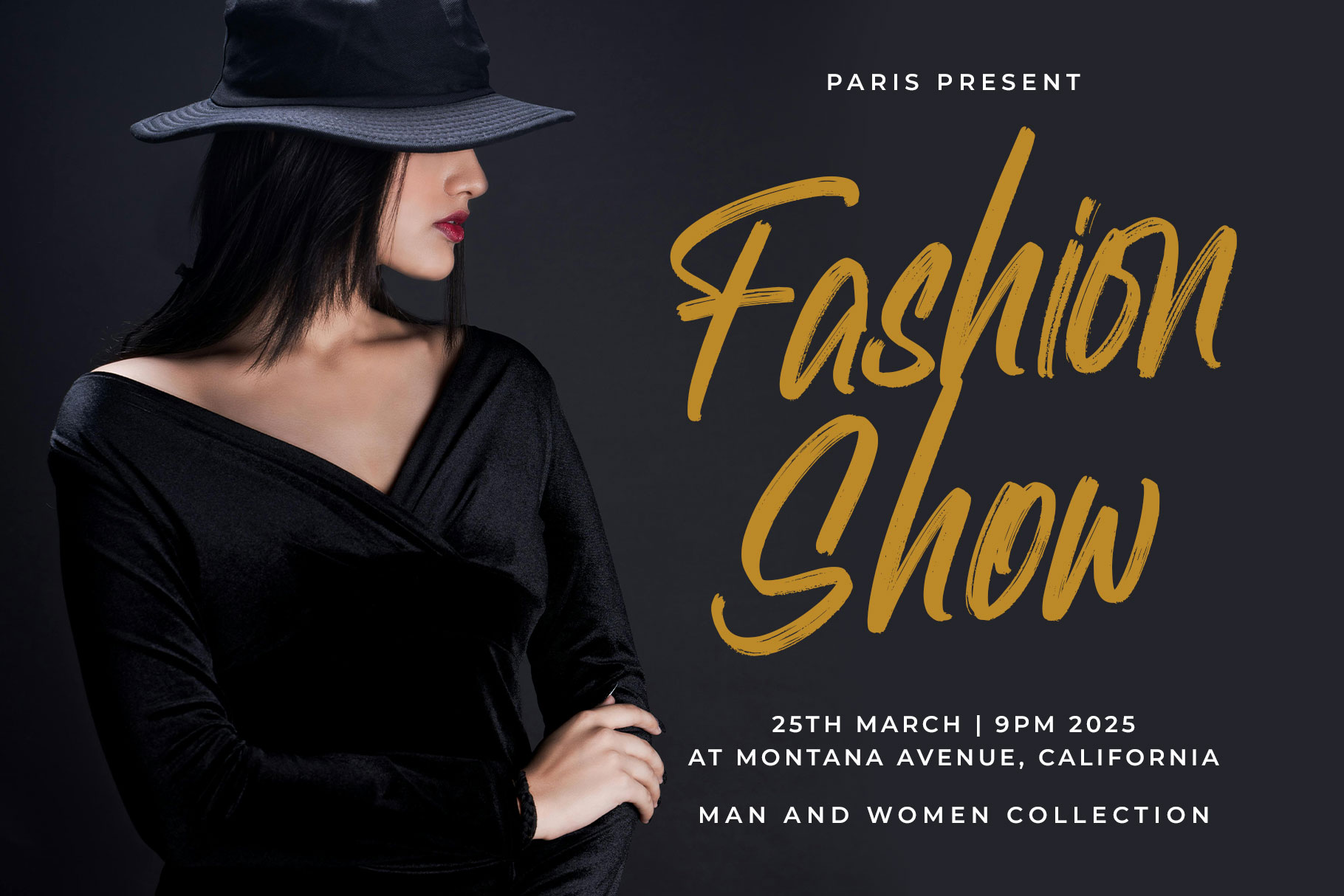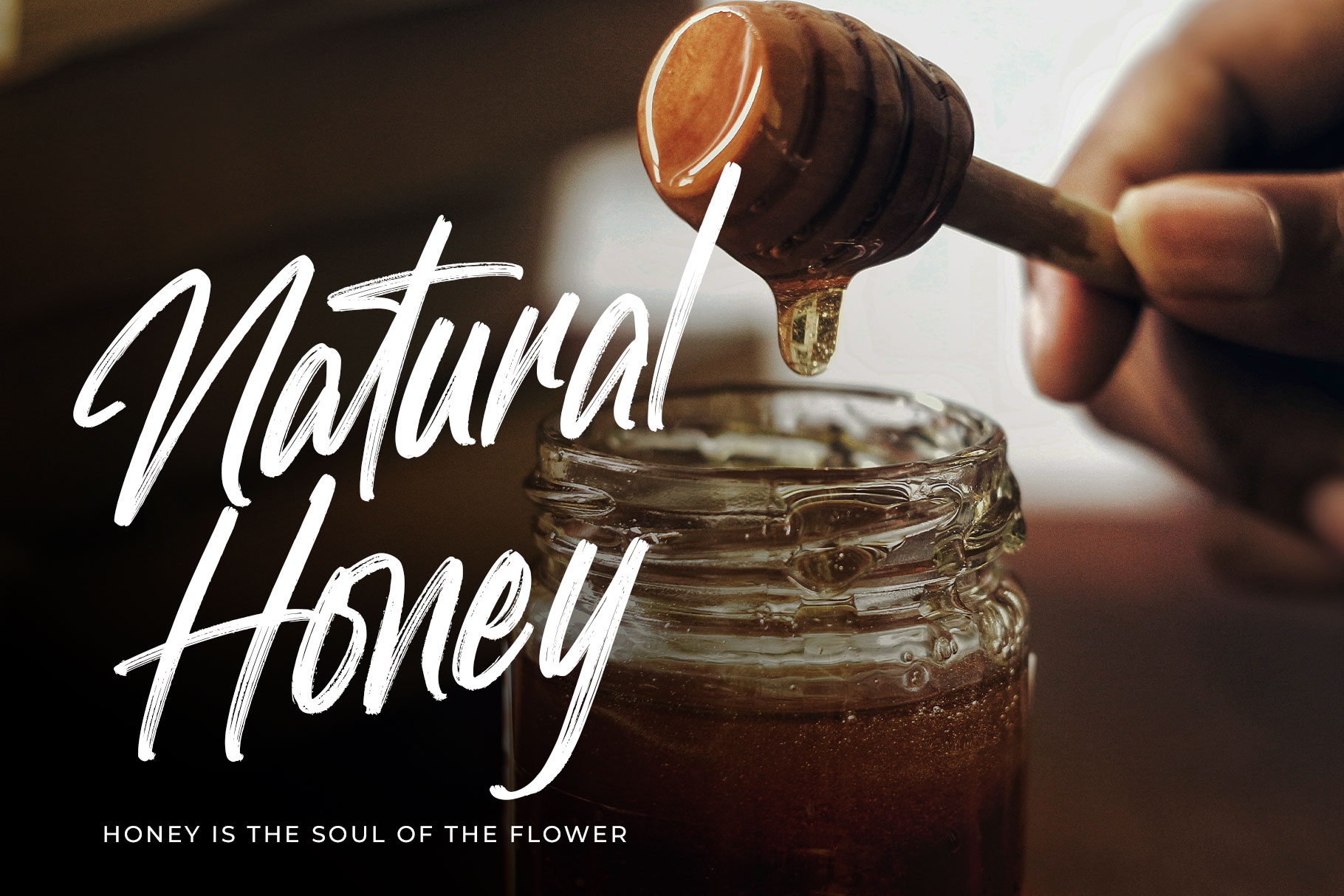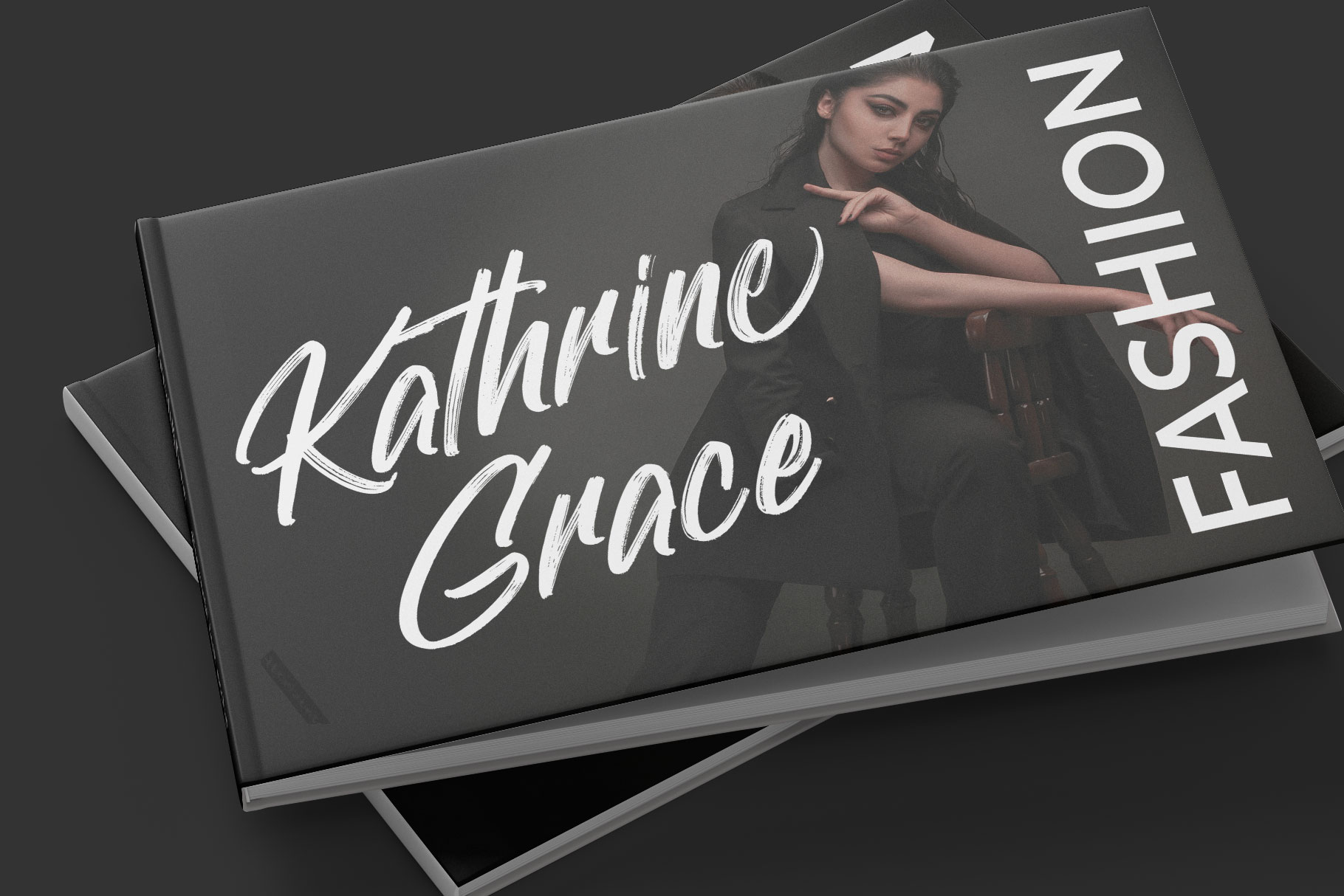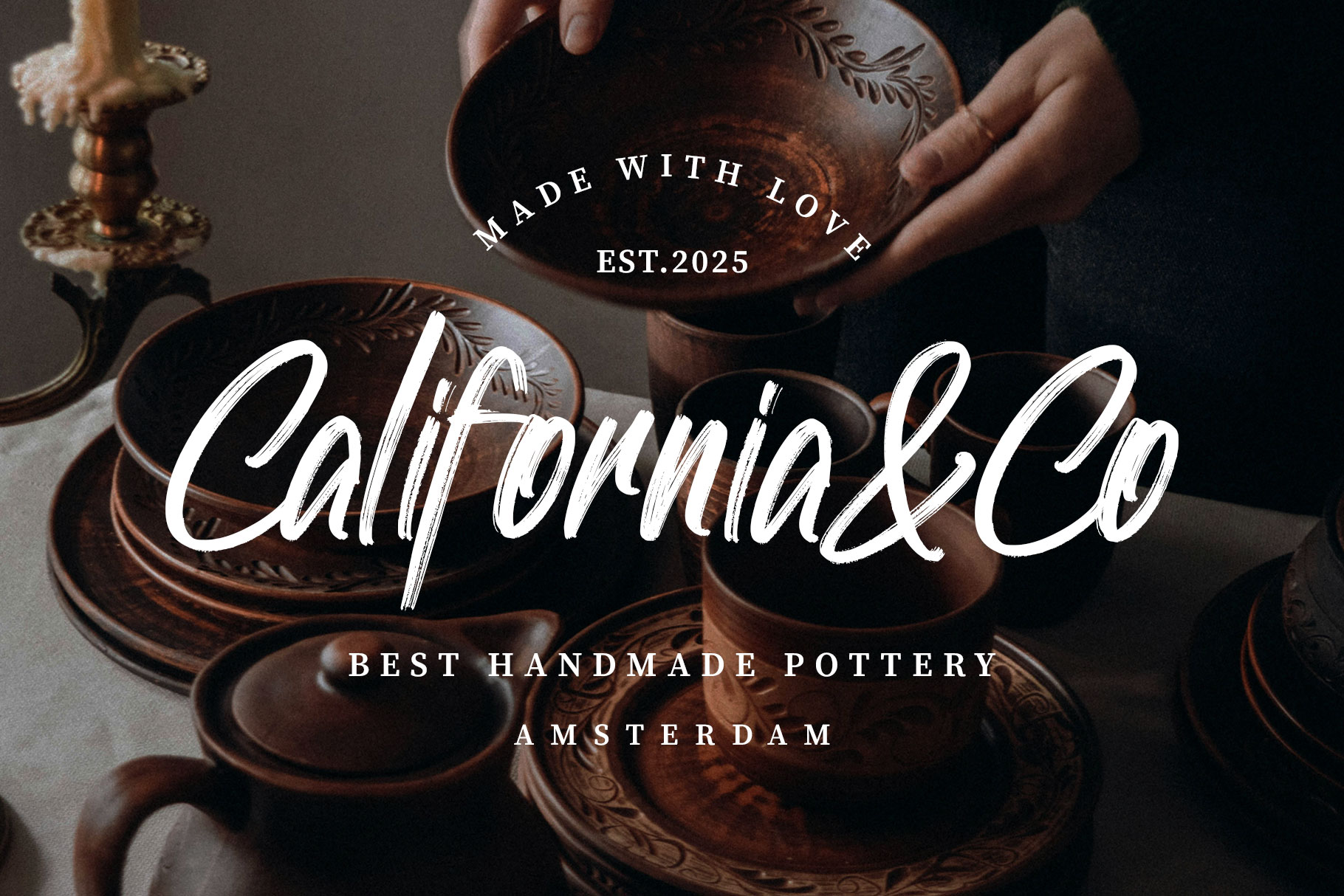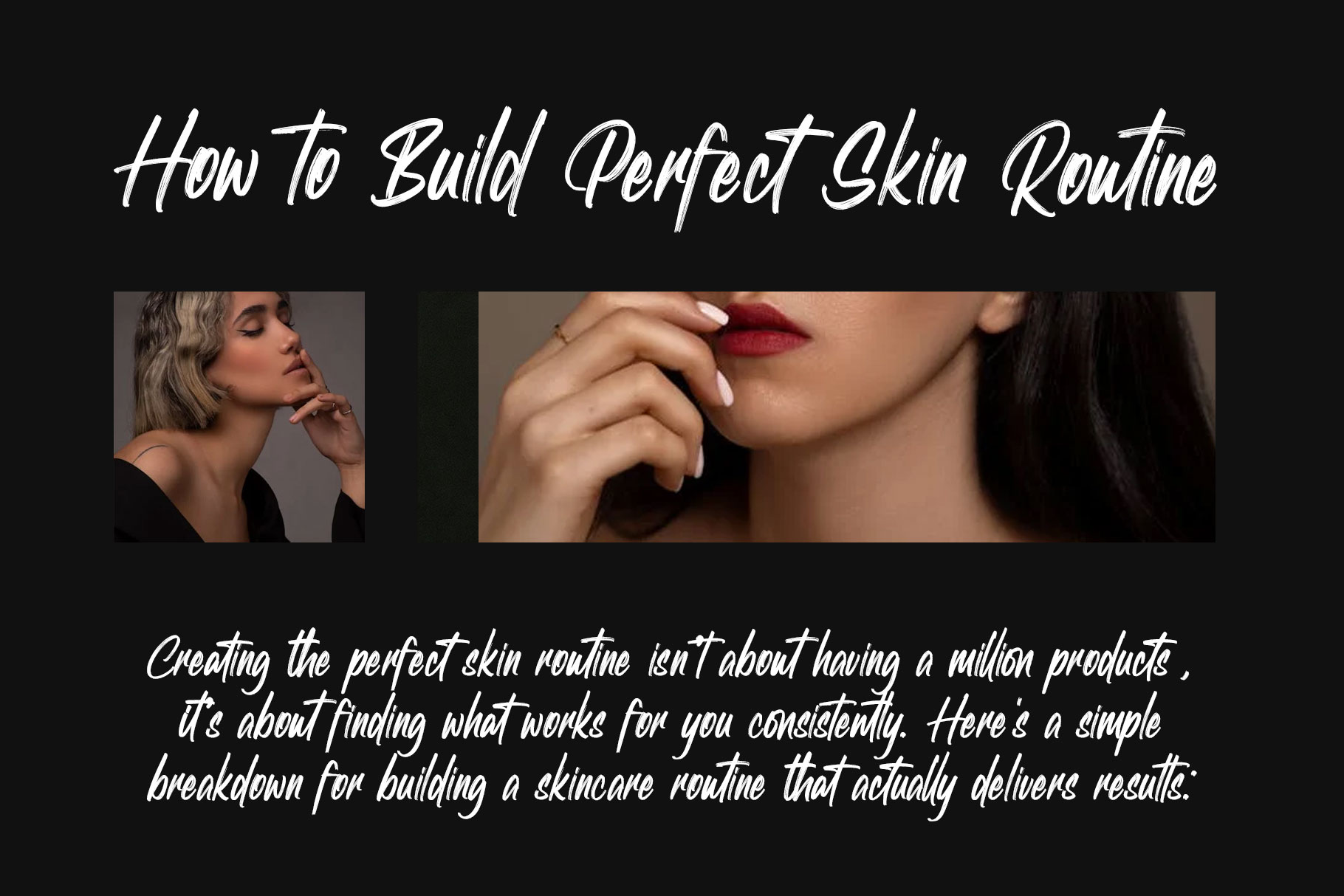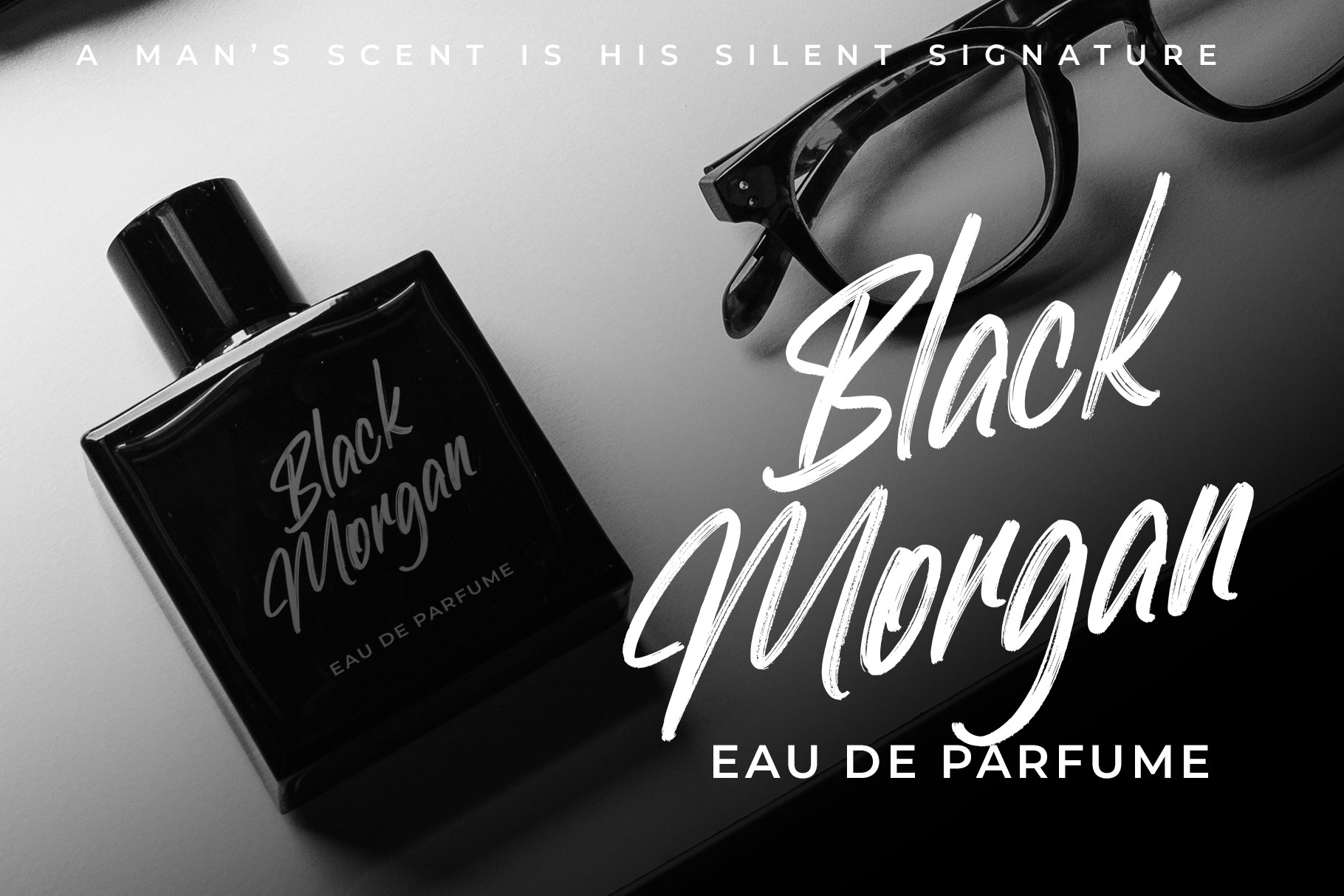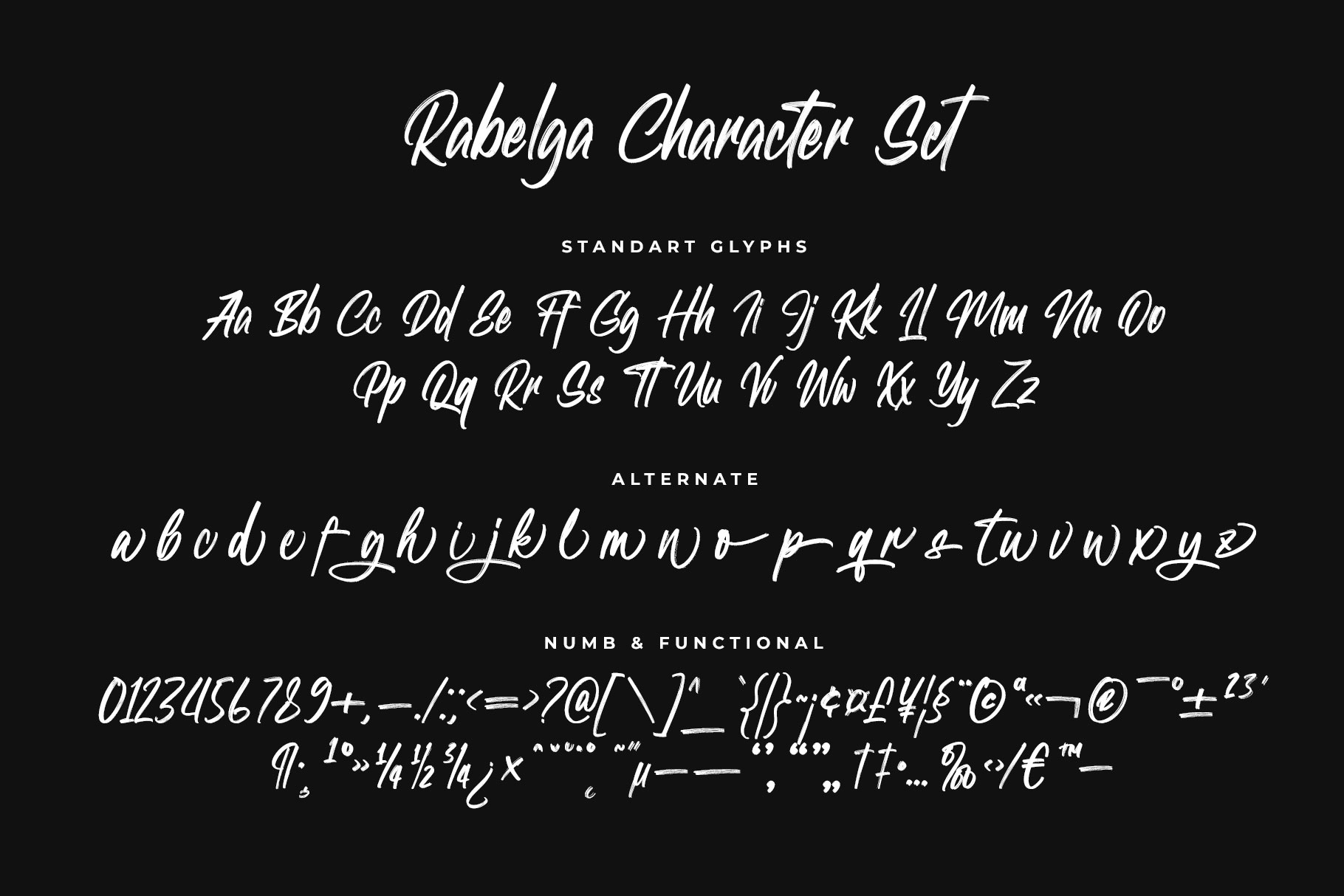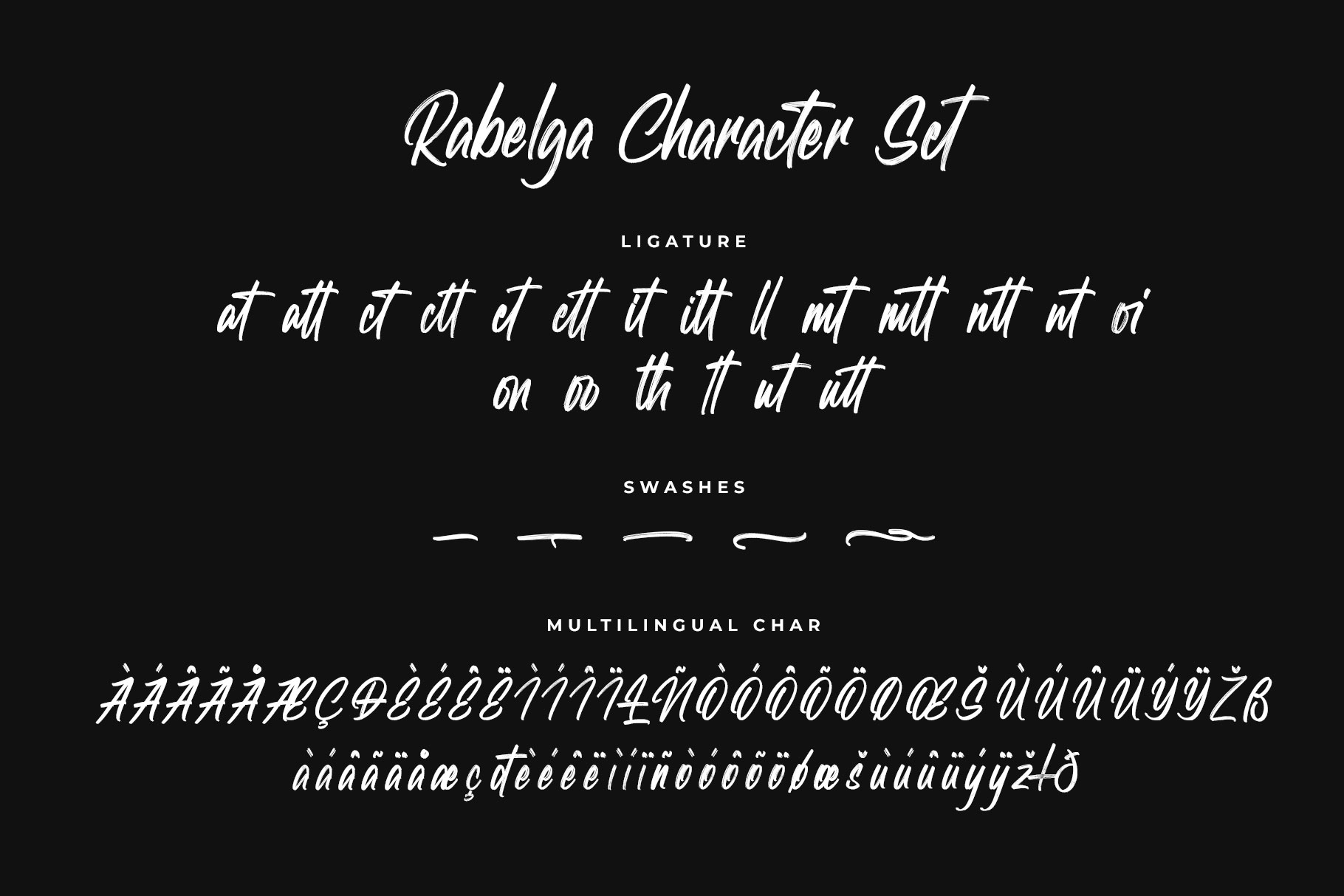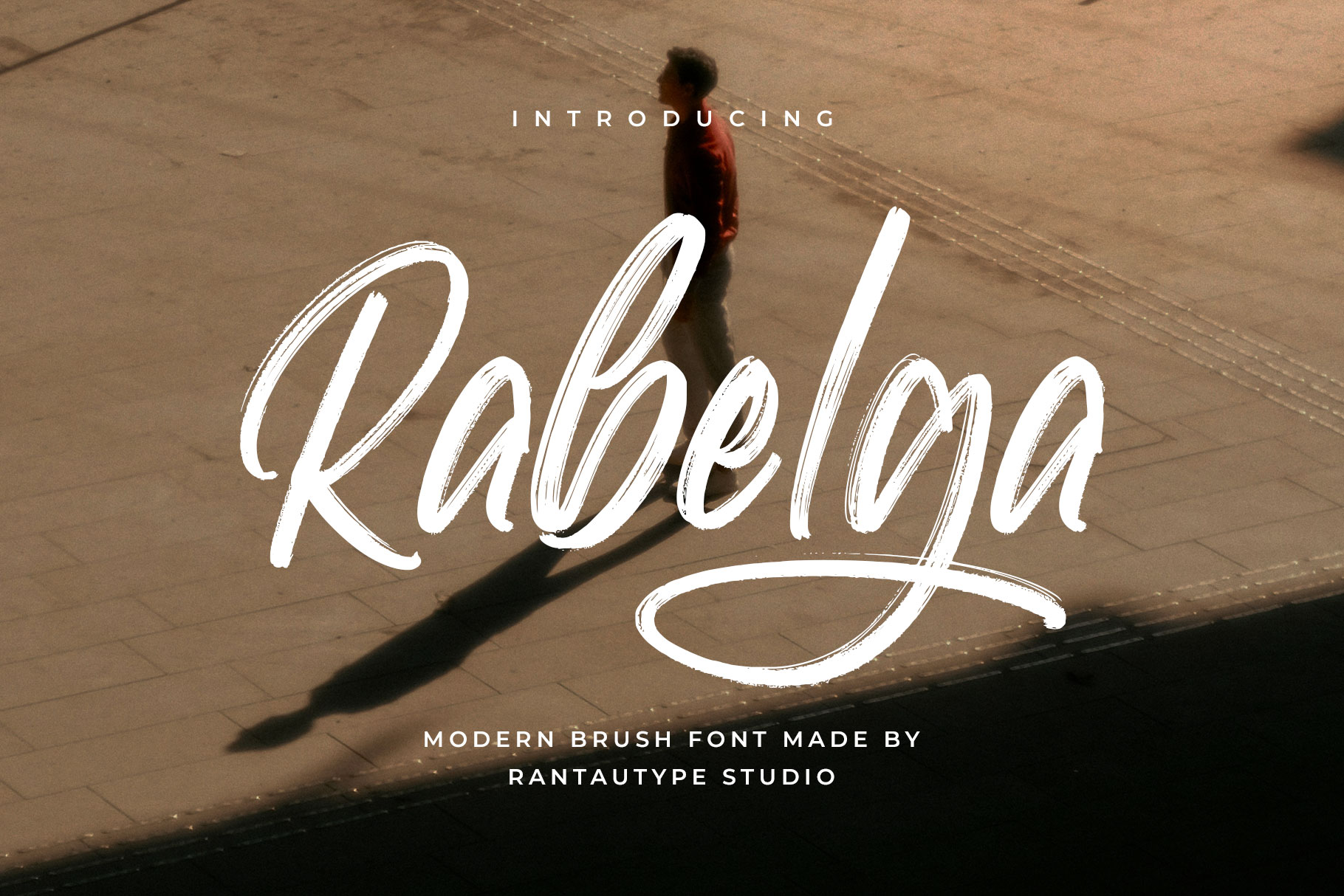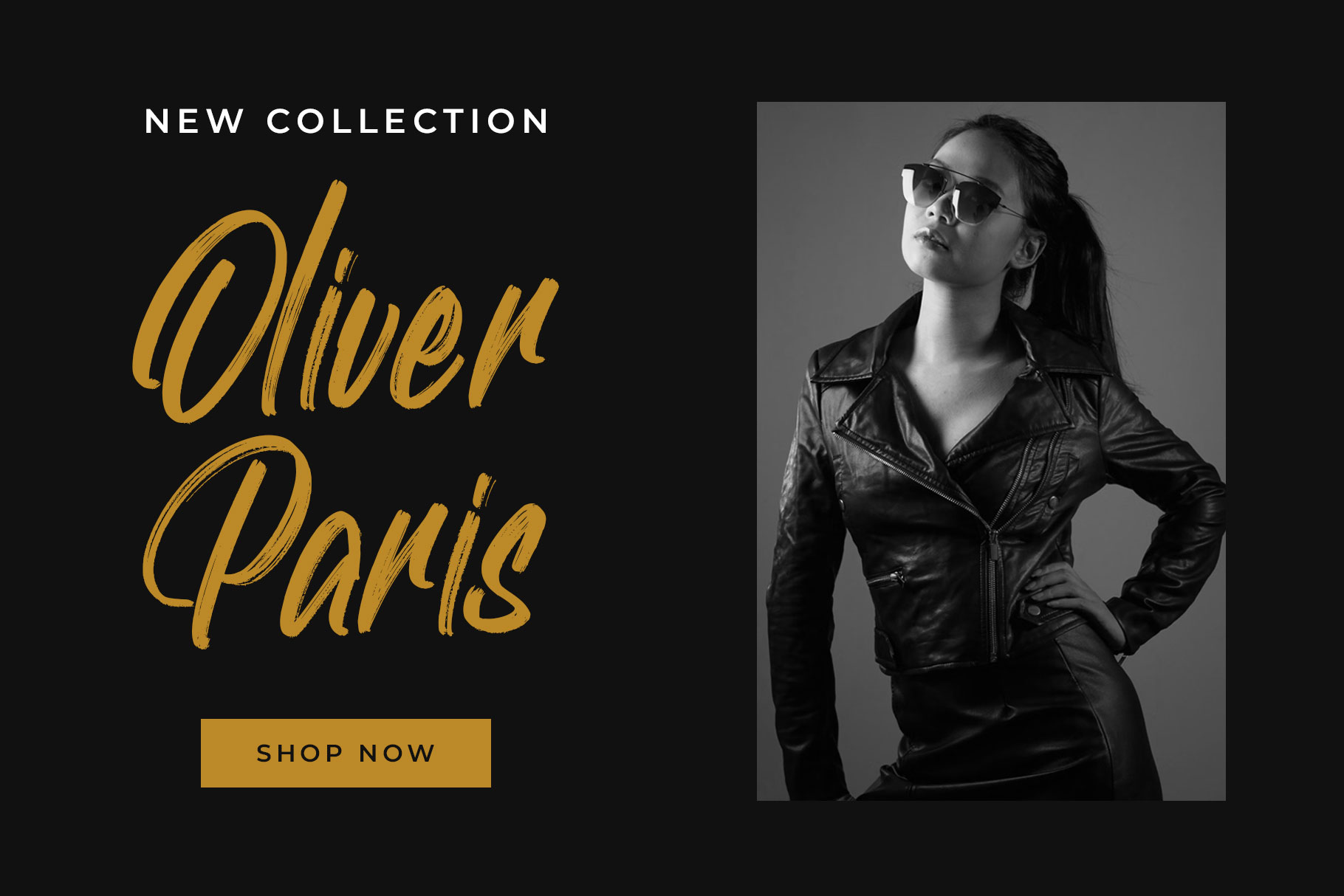
Rabelga Modern Brush Font
Rabelga is modern brush font with sense of personality, energetic and natural hand-painted strokes. Radelga is a perfectly choice for any creative endeavor, creating, modern, energetic, lifestyle design such as logotype, title, cover, branding, invitations, wedding designs, display and magazine, social media posts, advertisements, printed quotes, product packaging, corporate brand, product designs, labels, photography, watermarks, special events and any other project with modern touch.